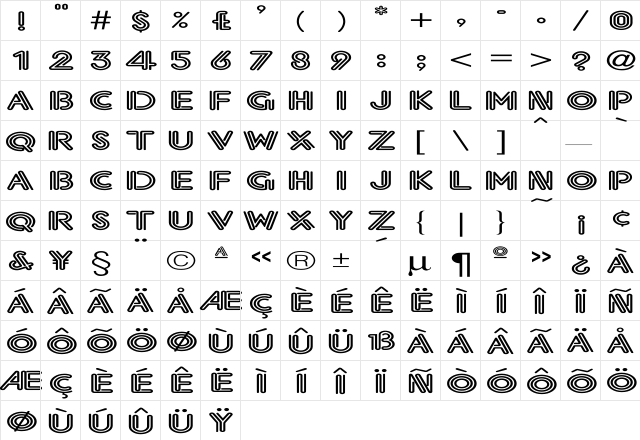
Eklektic-Normal Ex Regular
Design Context for Eklektic-Normal Ex Typeface
Eklektic-Normal Ex is a composed and adaptable typeface that performs quietly and consistently across a wide range of design contexts.